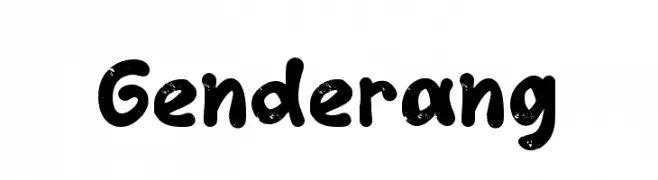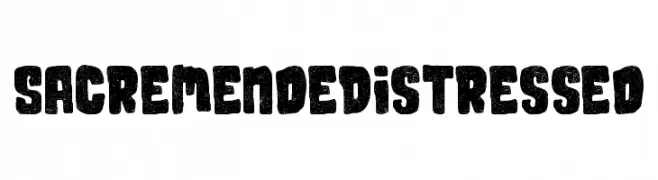
A bold, playful, hand-drawn font with a casual and artistic feel.
A bold, distressed font with a textured, vintage appearance.
A bold, distressed font with a vintage, stamp-like appearance.
Elegant handwritten script font.
Elegant cursive script with a handwritten feel.
A whimsical and decorative font with tall, slender uppercase letters and unique embellishments.
A modern, narrow font with bold, slender letterforms.
A playful, bold font with rabbit ear-like ascenders and rounded characters.